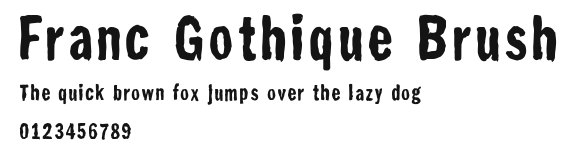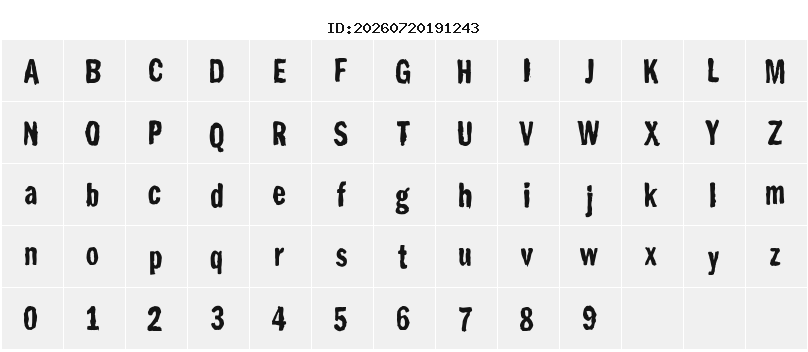
About Franc Gothique Brush.ttf
Franc Gothique Brush.ttf is a modern, elegant sans-serif font designed for ultimate readability and visual harmony. Perfect for branding, headlines, web design, and print materials.